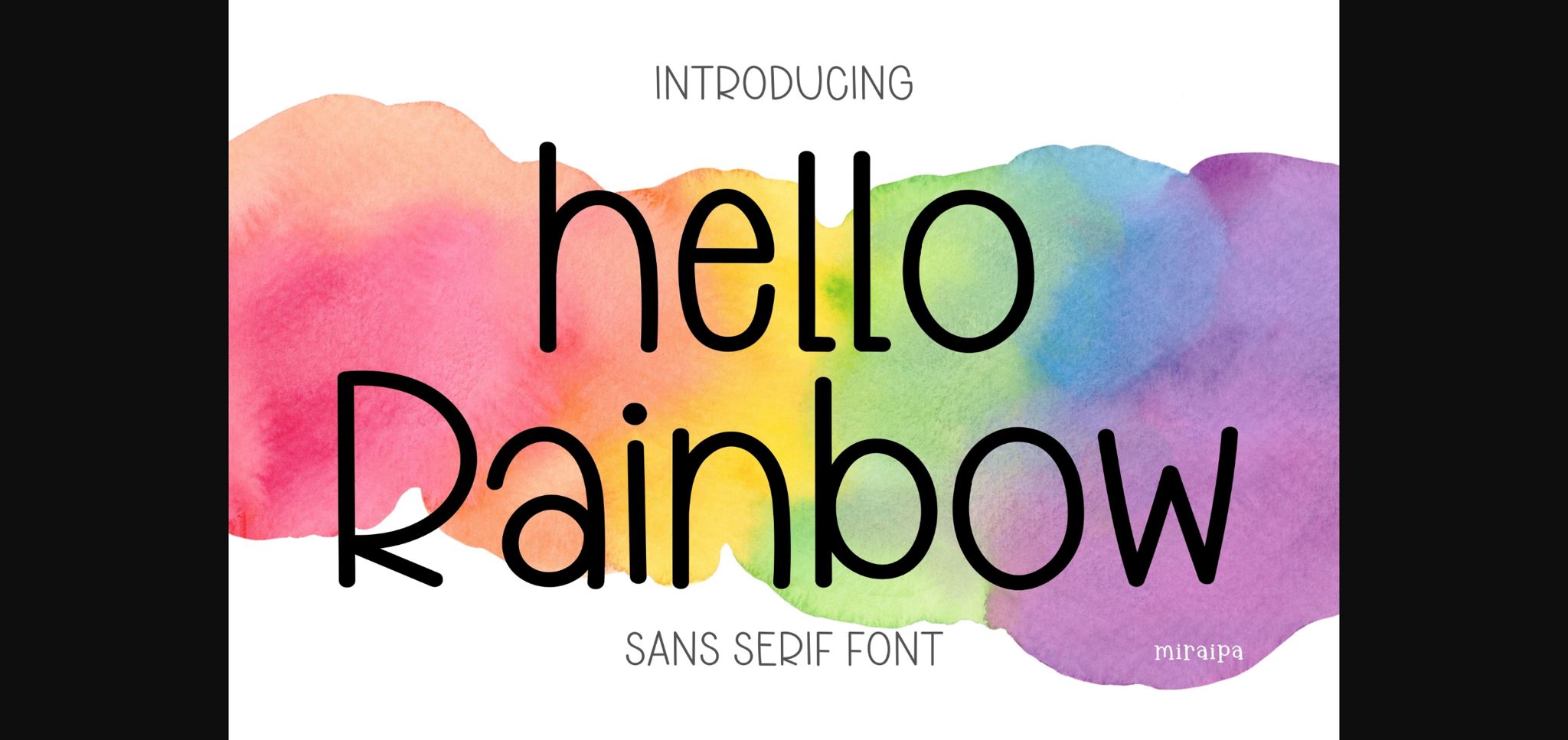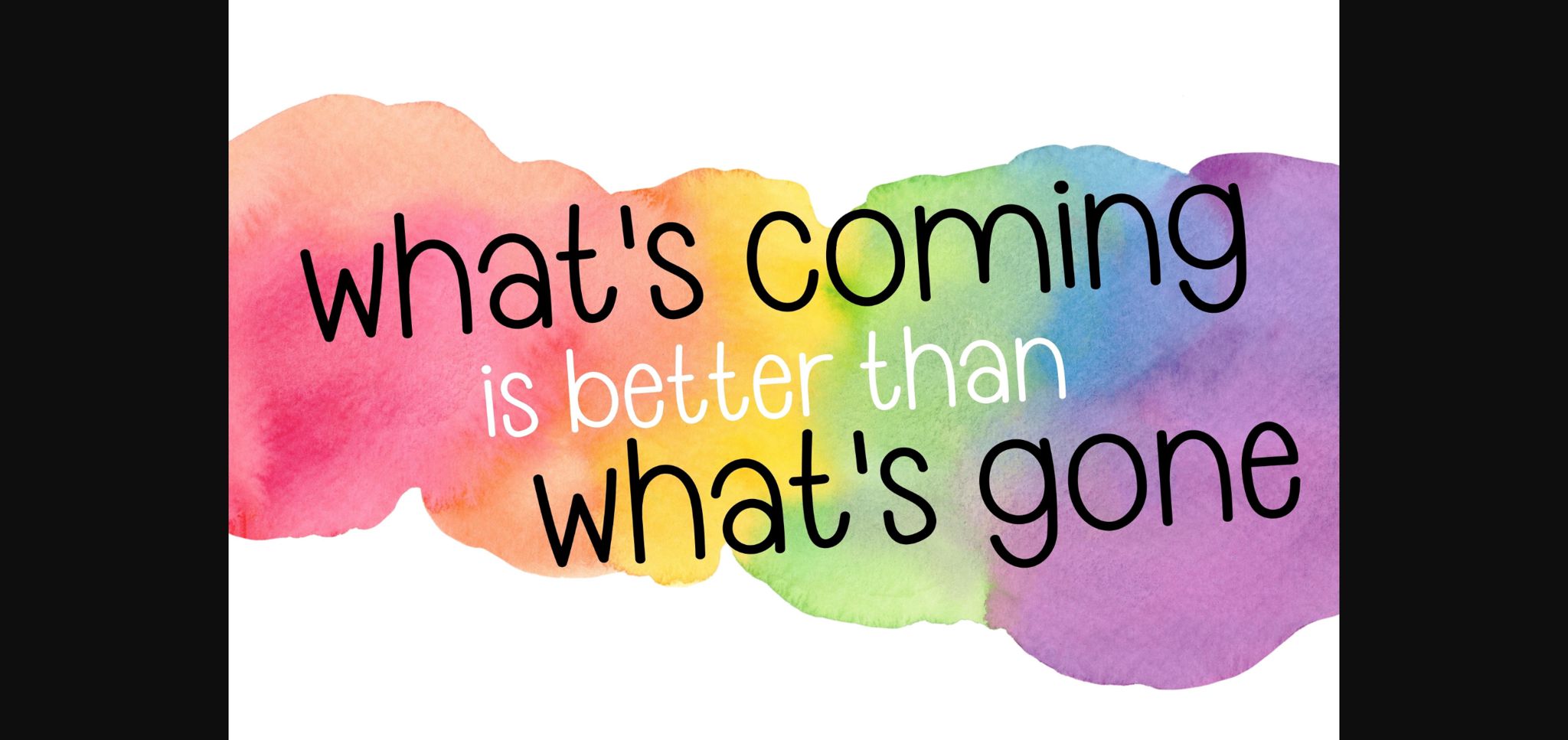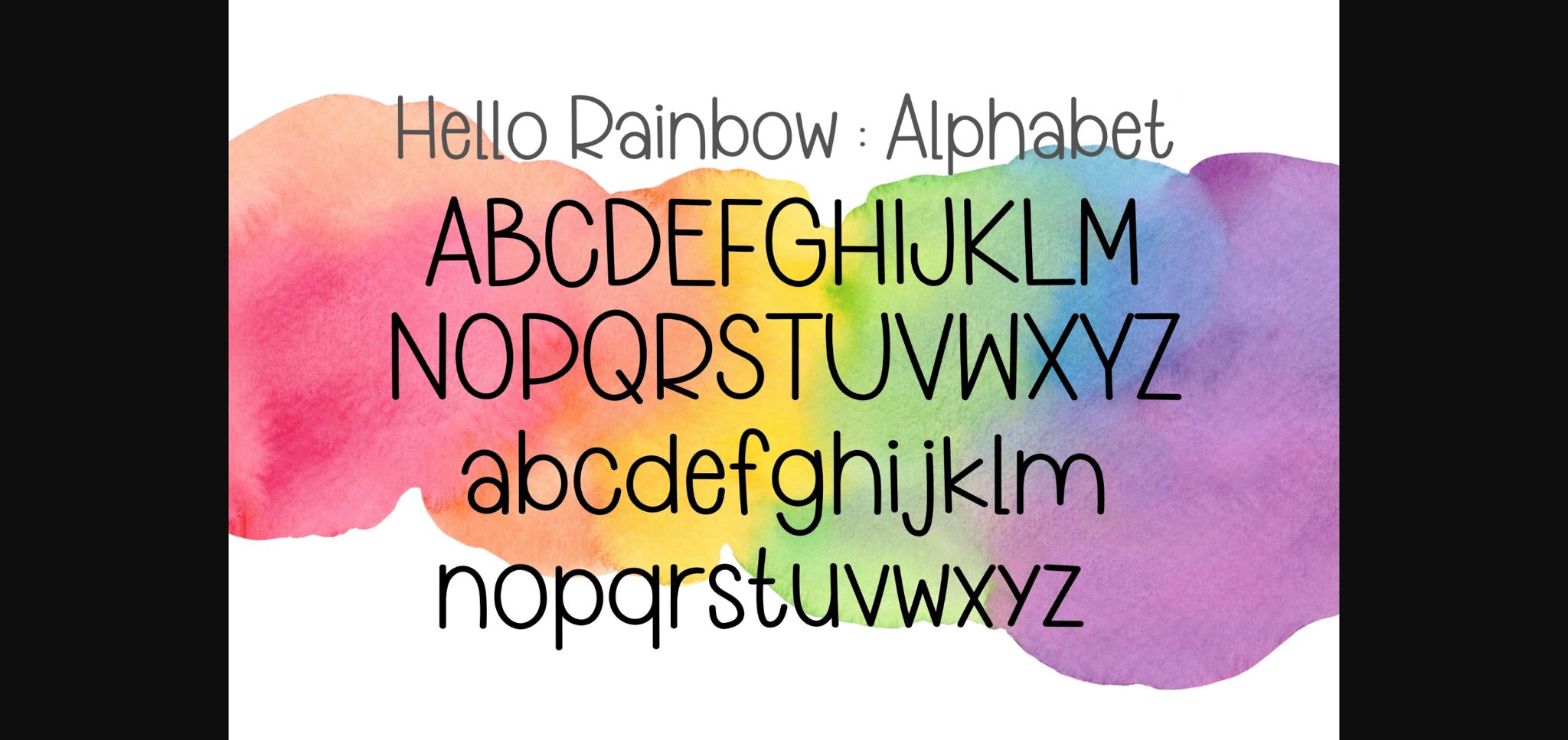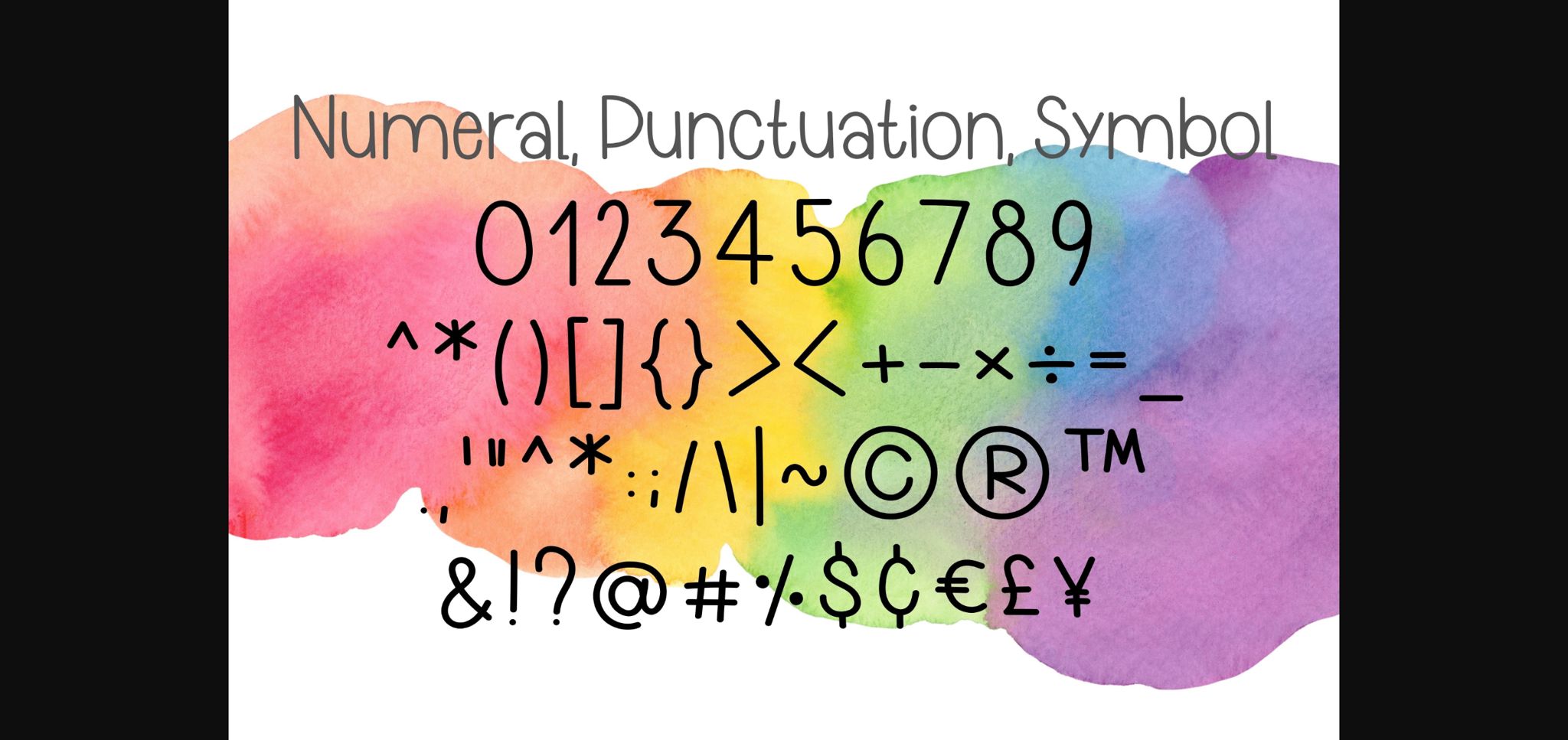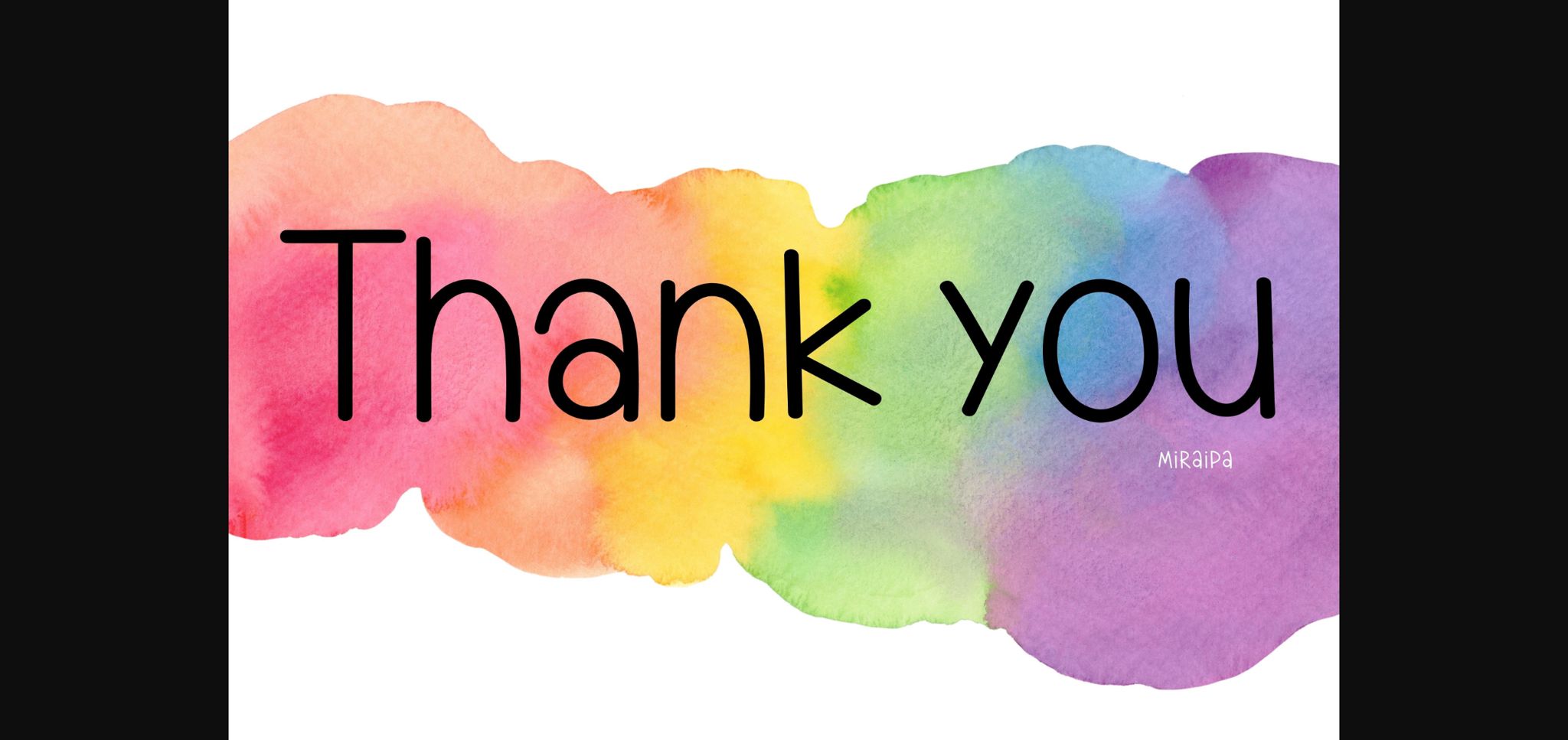
Hello Rainbow Font
About Hello Rainbow Font
Hello Rainbow is a playful handwritten sans serif font. Fall in love with its incredibly distinct and timeless style and use it to create spectacular designs!